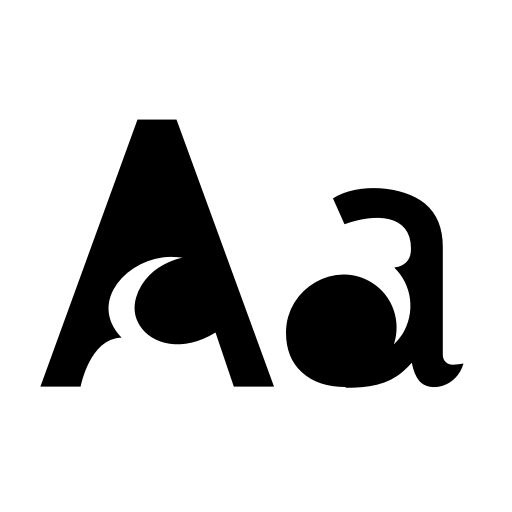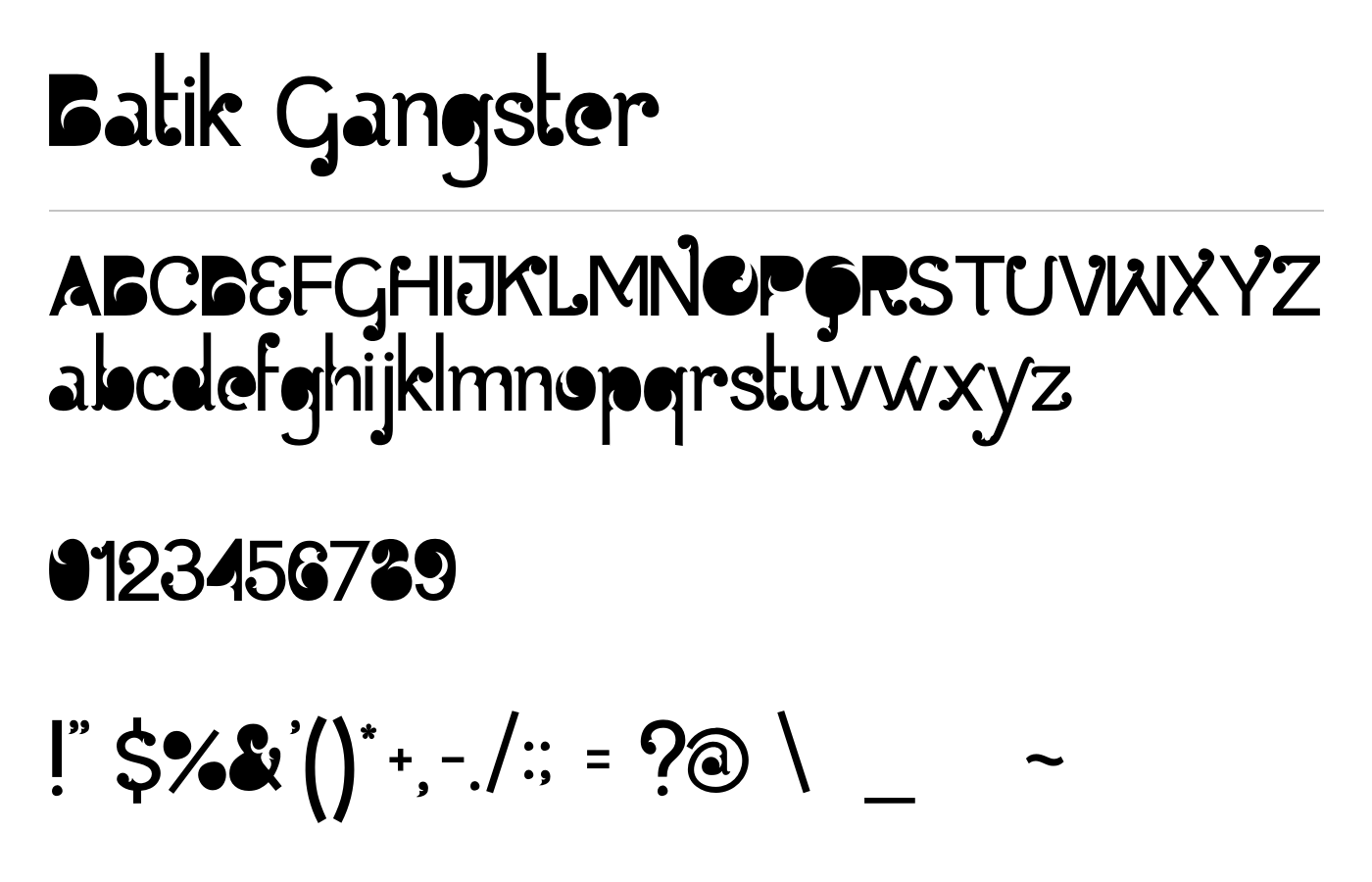
Batik Gangster is a bold, decorative serif font with a playful and quirky personality, characterized by its unique curled terminals and strong contrast between thick and thin strokes. It blends vintage charm with a modern twist, making it ideal for eye-catching headlines, branding projects, and creative packaging that seek a distinctive, artistic flair. This font stands out best where personality and style are key, adding an unforgettable touch to any design needing a bold, unconventional look.
Batik Gangster Font
About Batik Gangster Font